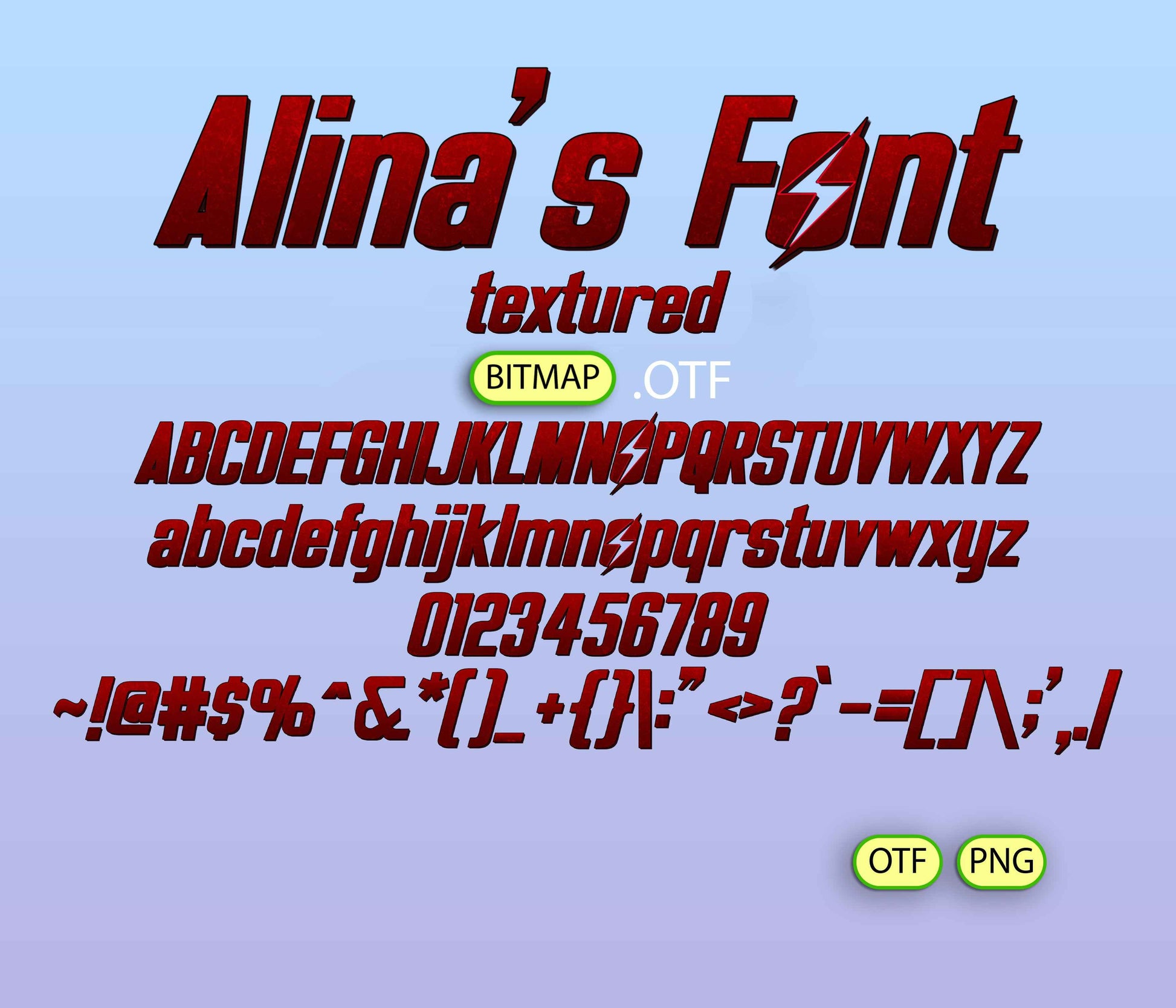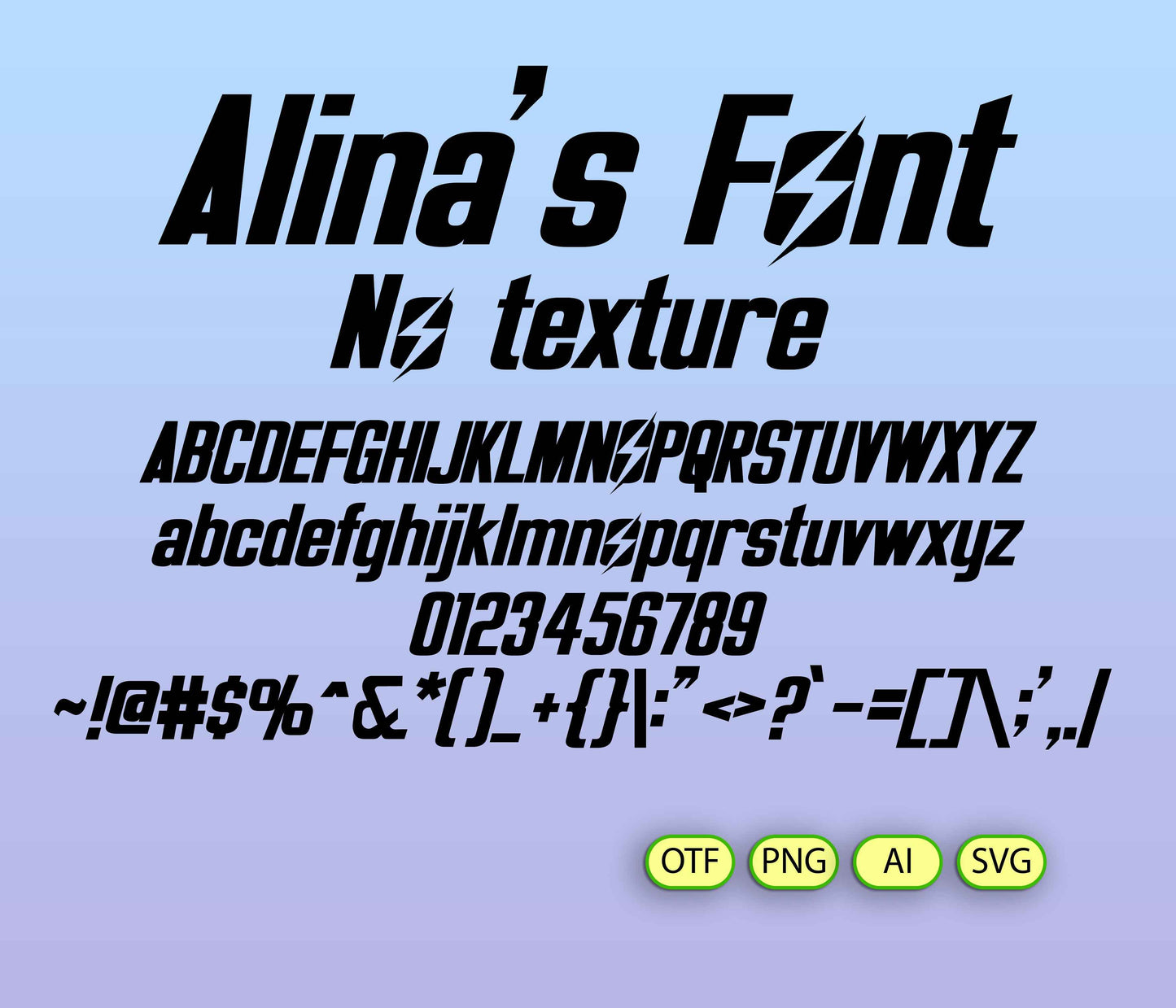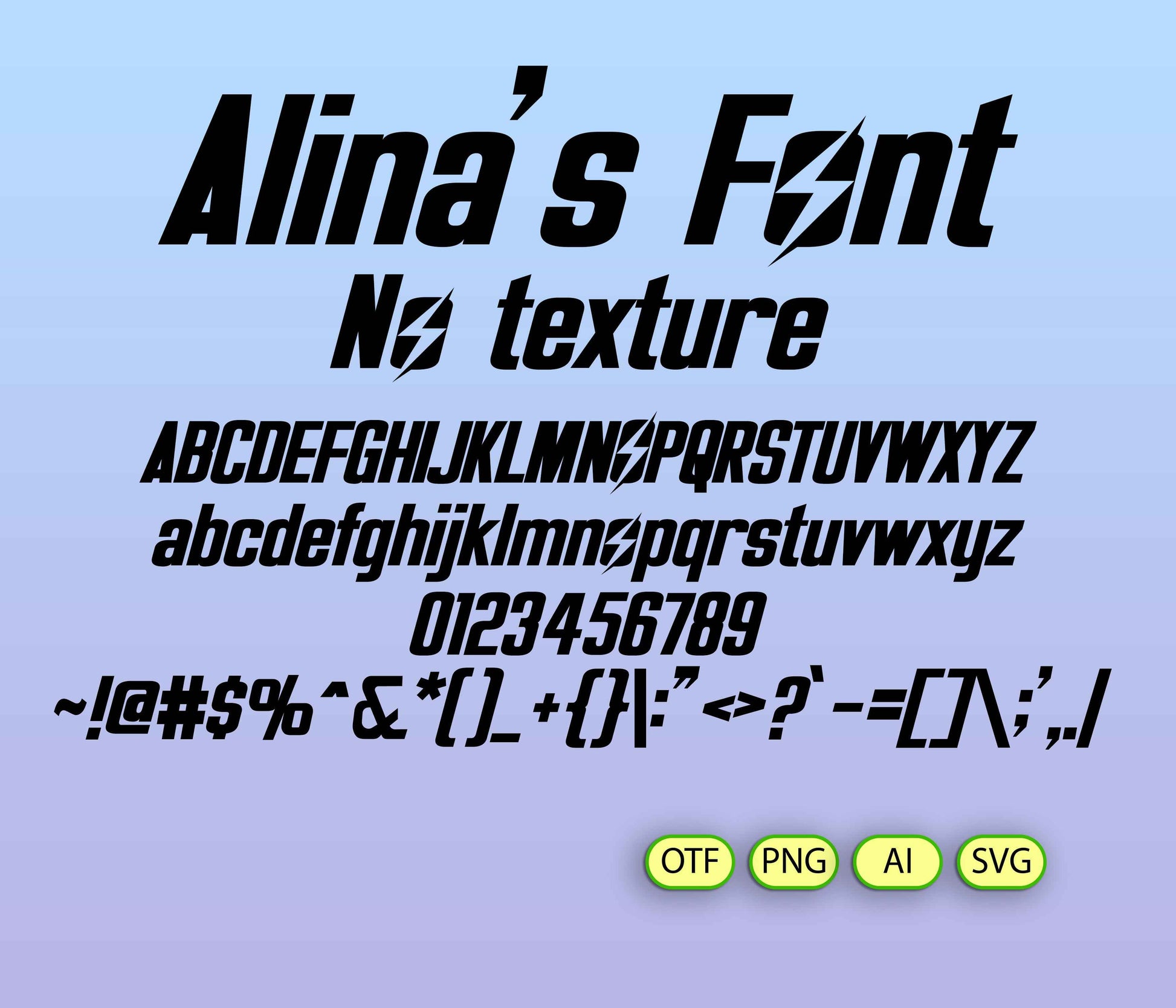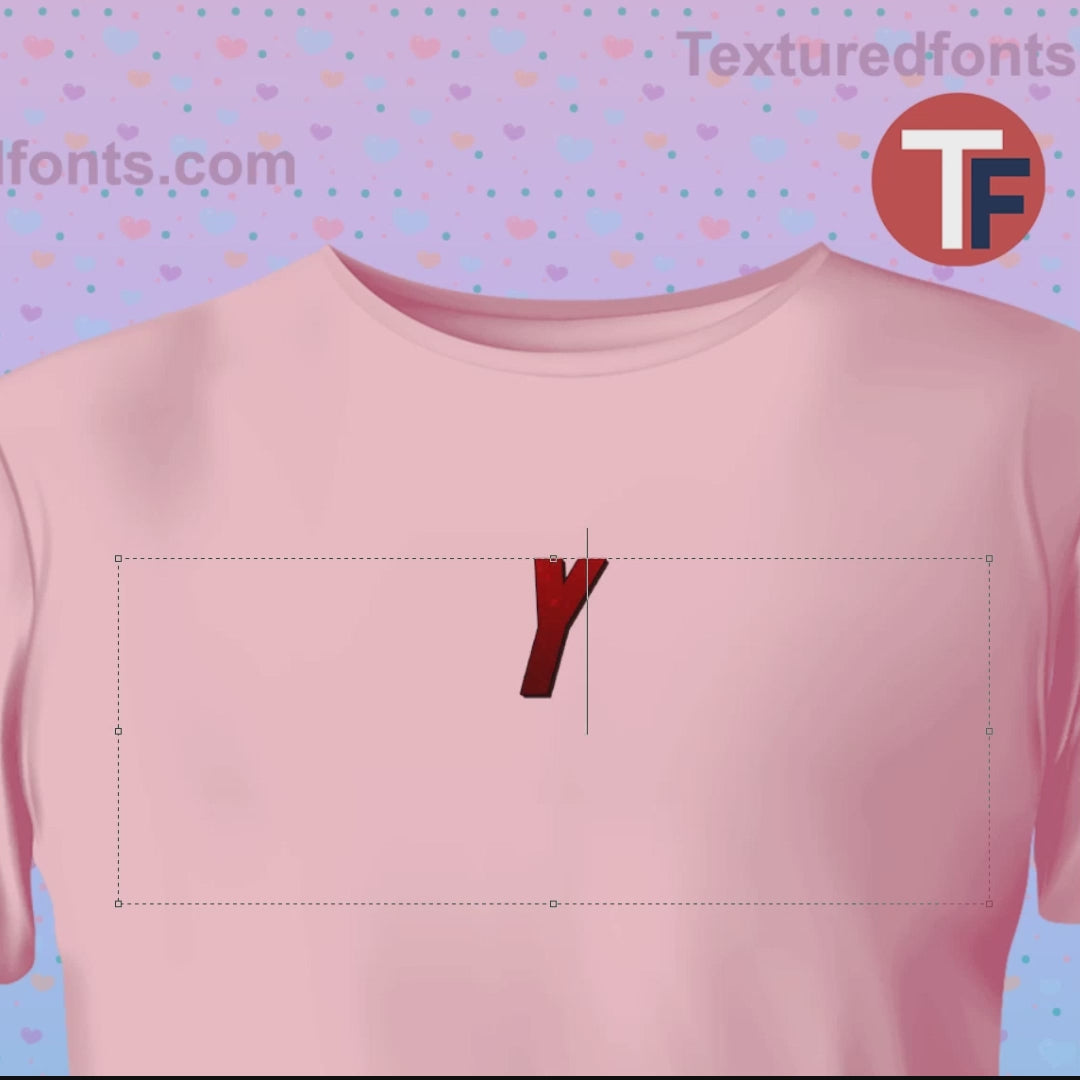
Nuclear Wasteland Font Textured
Nuclear Wasteland Font: A Post-Apocalyptic Design Aesthetic
Step into the wasteland with the Nuclear Wasteland font, a typeface inspired by the gritty, dystopian universe of post-apocalyptic video games. This font captures the essence of survival, resilience, and retro-futurism that defines beloved post-nuclear franchises. Each letter and symbol is crafted to evoke the feel of a 1950s-era inspired aesthetic blended with the harsh realities of a world after atomic devastation. Ideal for gamers, designers, and fans of dystopian scenarios, the Nuclear Wasteland font is your gateway to creating works that resonate with the spirit of exploration and survival in a harsh, irradiated world.
The versatility of the Nuclear Wasteland font allows for a wide range of creative applications, particularly those that aim to capture the essence of a post-atomic game world:
1. Video Game Design: Ideal for UI elements, game menus, and in-game graphics.
2. Event Promotion: Craft eye-catching posters and flyers for game launch events or sci-fi conventions.
3. Merchandise: Design t-shirts, hoodies, and accessories that fans of post-apocalyptic scenarios will treasure.
4. Digital Content: Enhance your streaming overlays, social media posts, or video thumbnails.
5. Fan Projects: Create custom fan art, comics, or novels set in a nuclear wasteland universe.
6. Themed Parties: Send out invitations and decorate venues for post-apocalyptic themed gatherings.
7. Website Design: Build engaging web designs for gaming blogs, fan sites, or e-commerce platforms.
8. Educational Content: Develop compelling presentations or infographics about video game history or design.
9. DIY Crafts: Personalize your gear with decals, prints, and more using the font.
10. Marketing Materials: Use the font for impactful advertising campaigns or promotional materials.